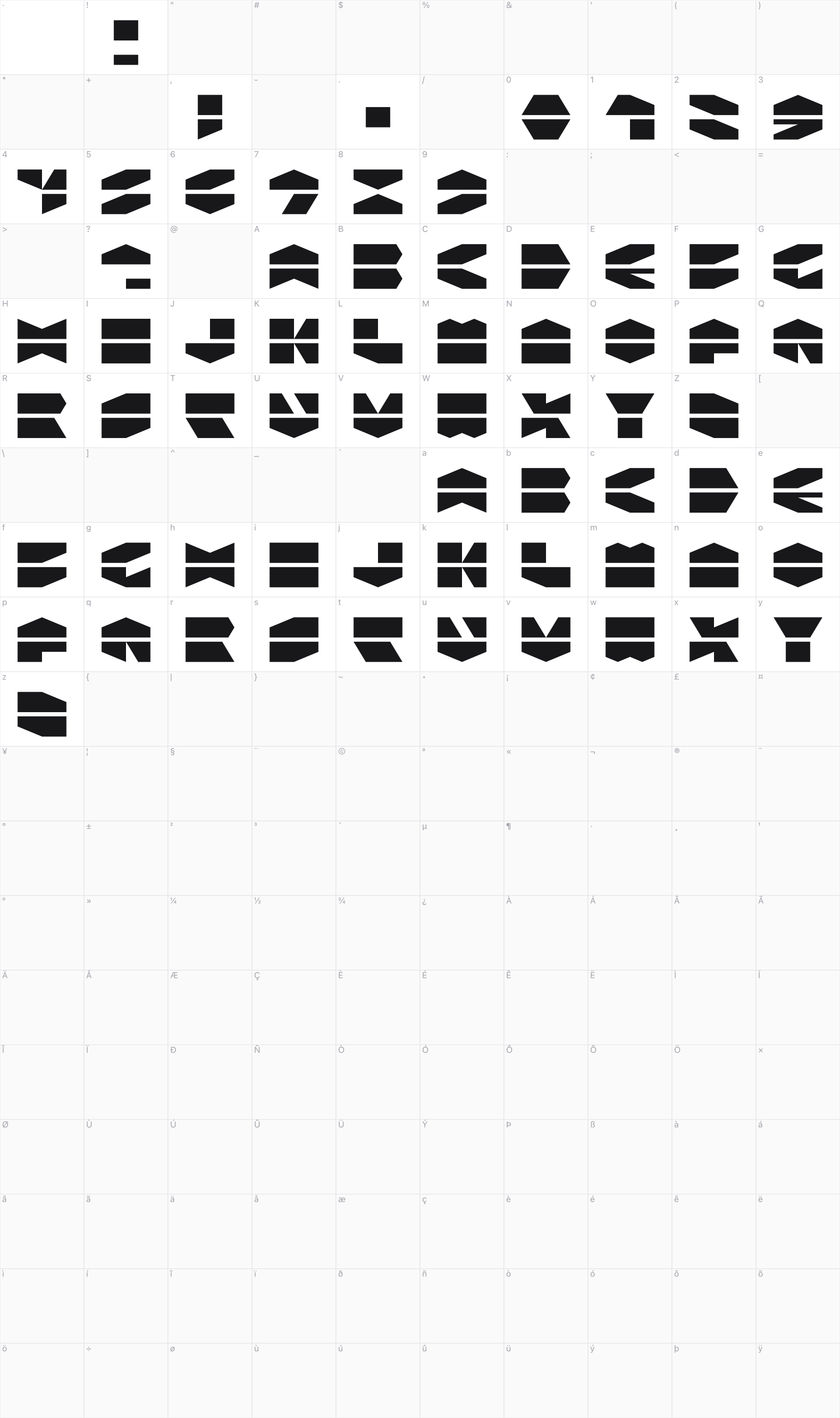
LDR Hexatron
LDR Hexatron is a modular display font built from interlocking hexagonal and rectangular segments that give each character a dense, machined geometry. Every letter is constructed on a strict geometric grid with angled cuts, creating a unified block-like silhouette with no stroke contrast whatsoever. The result sits firmly in sci-fi and gaming territory, working best at large sizes where the tile-work structure can be read clearly.